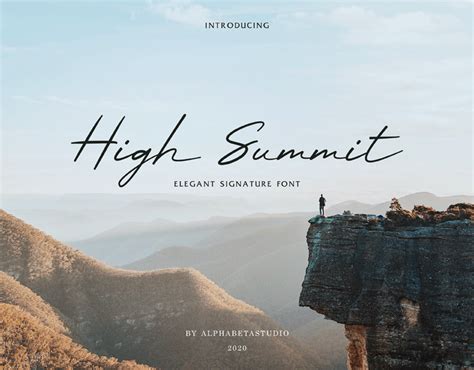
High Summit Font. Web high summit is a signature style handwritten font with a natural and elegant flow. This font have special features.
Web high summit is elegant signature font. $ free for personal use. It can be used on your project, photography, name tag,. This font have special features. Web high summit is a signature style handwritten font with a natural and elegant flow. Web high summit font.
$ free for personal use. This font have special features. Web high summit font. $ free for personal use. It can be used on your project, photography, name tag,. Web high summit is elegant signature font. Web high summit is a signature style handwritten font with a natural and elegant flow.